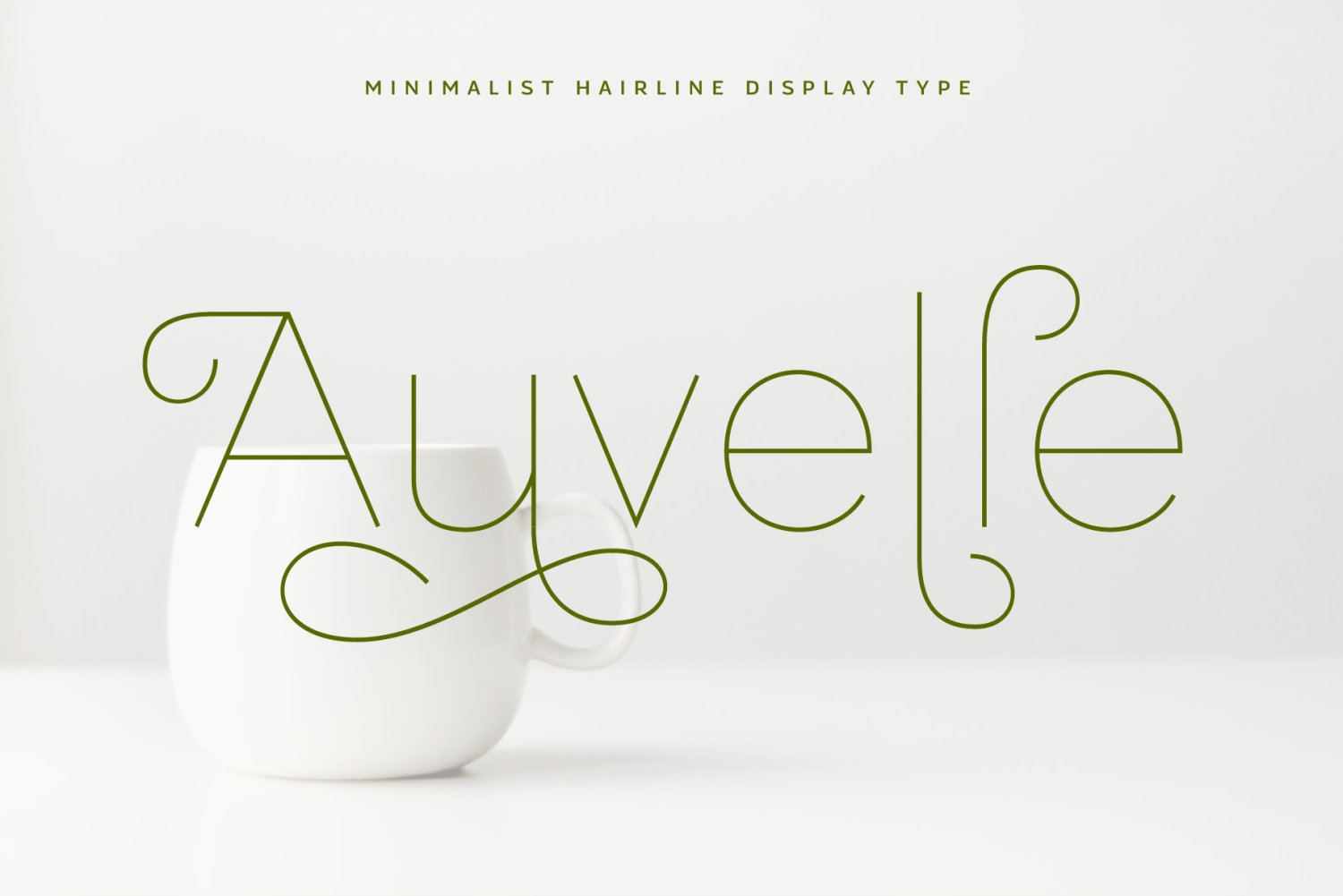
About Auvelle Regular
Auvelle – Minimalist Hairline Display Type Inspired by a luxurious & elegant brand that use minimalist design language. Auvelle created in a simplicity, a minimalist, luxury and also looks elegant. Designed for a Display fonts that perfectly fits…